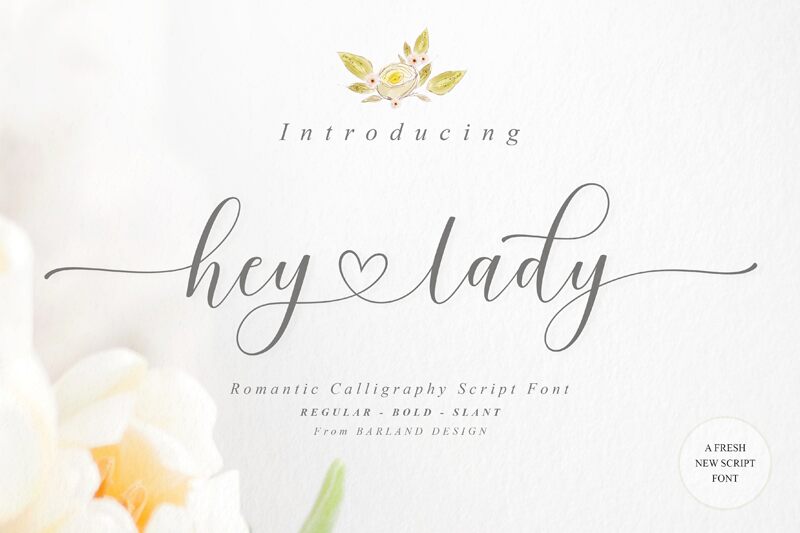
Hey Lady Bold Slant, a stunning calligraphy font created by the talented designer Barland. With its semi-light weight, this font exudes elegance and sophistication, making it perfect for wedding invitations, luxurious branding projects, and romantic editorial designs. Its slanted angle adds a touch of playfulness and uniqueness, making it an ideal choice for fashion magazines, beauty blogs, and feminine branding campaigns. Hey Lady Bold Slant is sure to captivate your audience with its graceful curves and artistic flair. Elevate your projects with this exquisite typeface that effortlessly combines classic calligraphy with a modern twist.